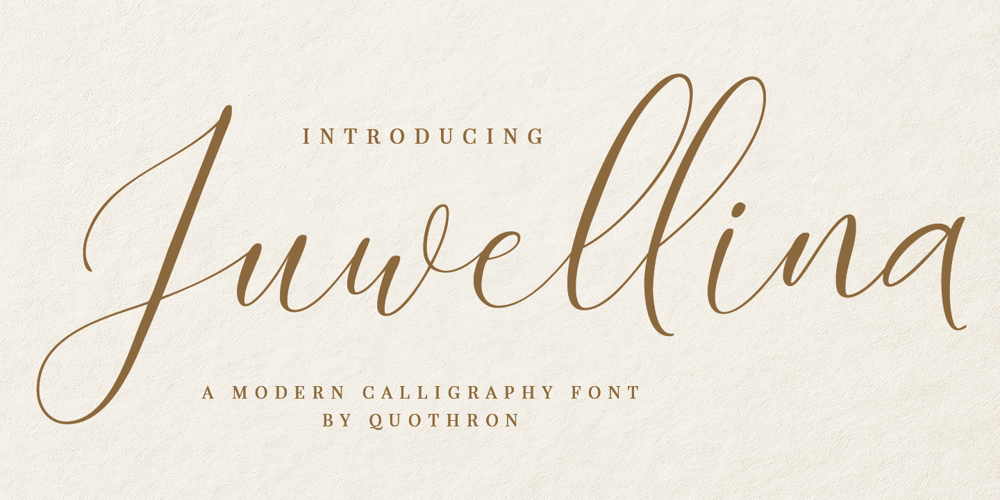
Juwellina Font Family was designed by Arthur Ilyin and published by Quothron. Juwellina contains 1 styles and family package options. Juwellina – a new fresh handmade calligraphy font.Very suitable for greeting cards, branding materials, business cards, quotes, posters, and more!This font are perfect for wedding postcard. Or you can create perfect and unique design of your logo, blog, stationery, marketing, magazines and more :)Also supported PUA encoded. Access font characters are compatible with the Silhouette Studio, Cricut Design Space. Simply copy and paste the alternate characters using the Character Map (Windows), Nexus Font (Windows), Font Book (Mac) or a software program such as PopChar (for Windows and Mac).FEATURESLigatures , Alternates , Multilingual characters (AÀÁÂÃÄÅCÇDÐEÈÉÊËIÌÍÎÏNÑOØÒÓÔÕÖUÙÜÚÛWYÝŸŸ ÆŒßÞàáâãäåæçèéêëìíîïðñòóôõöøùúûüýÿ)